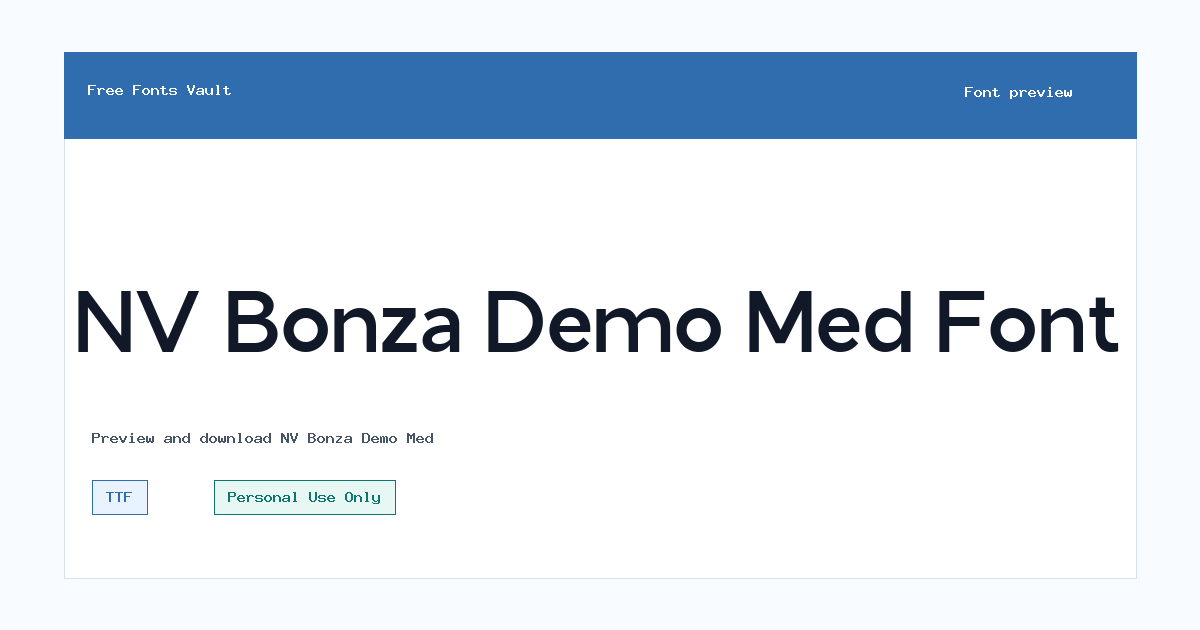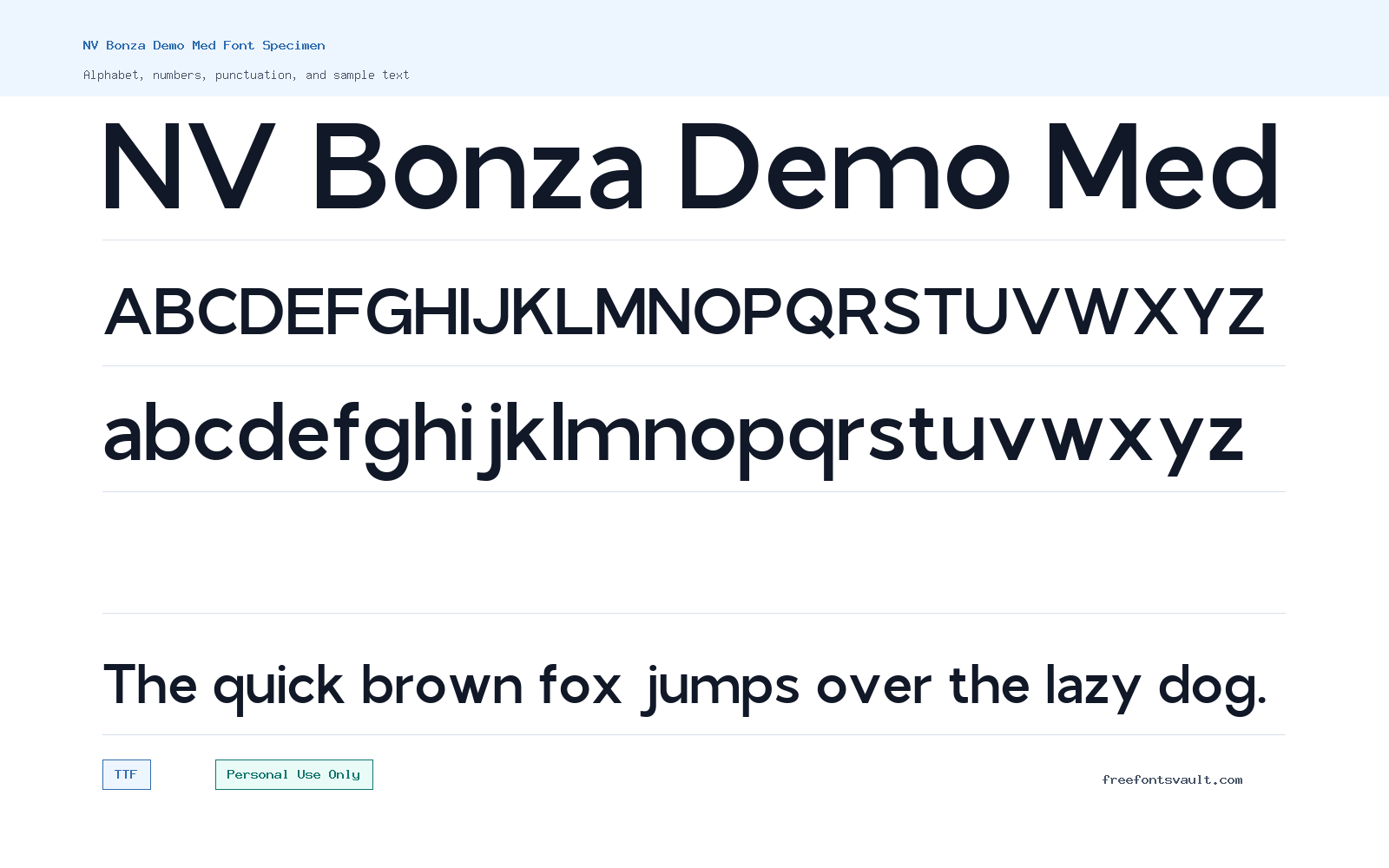
NV Bonza Demo Med
- Designer Almer Muhammad Hafidz
- Foundry NovaraType
NV Bonza Demo Med font.
NV Bonza Demo Med is a medium-weight sans serif demo font with a clean, steady look that works well for testing headlines, labels, and short display text.
About NV Bonza Demo Med
NV Bonza Demo Med is listed as a normal-style TTF font with a 500 weight, giving it a balanced middle weight rather than a very light or heavy appearance. That makes it useful when you want text that feels firm and readable without becoming too bold. The name suggests it belongs to the NV Bonza demo family, and the available file is the Medium style.
Try this font first in short words, title lines, menu labels, poster text, or social graphics where a direct sans serif voice fits the design. Because only one demo medium variant is listed, it is best to test spacing, uppercase letters, numbers, and punctuation in the preview before using it across a full layout. For longer reading text, check paragraph comfort carefully, especially at smaller sizes.
- Medium 500 weight for a clear, balanced sans serif appearance.
- Normal style with one listed regular demo variant.
- Good for testing short display text, headings, labels, and simple layout mockups.
- Personal poster drafts, social media graphics, and title treatments.
- Logo concept testing, packaging mockups, and short brand-style text experiments.
- Website hero headings or UI labels during early personal design exploration.
- Font pairing tests with lighter body fonts or more expressive display faces.
NV Bonza Demo Med is credited to designer Almer Muhammad Hafidz and foundry NovaraType.
What weight is NV Bonza Demo Med?
The available variant is marked as weight 500, which is commonly treated as a medium weight.
Who designed NV Bonza Demo Med?
The font is credited to Almer Muhammad Hafidz, with NovaraType listed as the foundry.
What should I use this font for?
It is a practical choice for personal-use headline tests, poster drafts, social graphics, labels, and other short text where a clean medium sans serif style is useful.